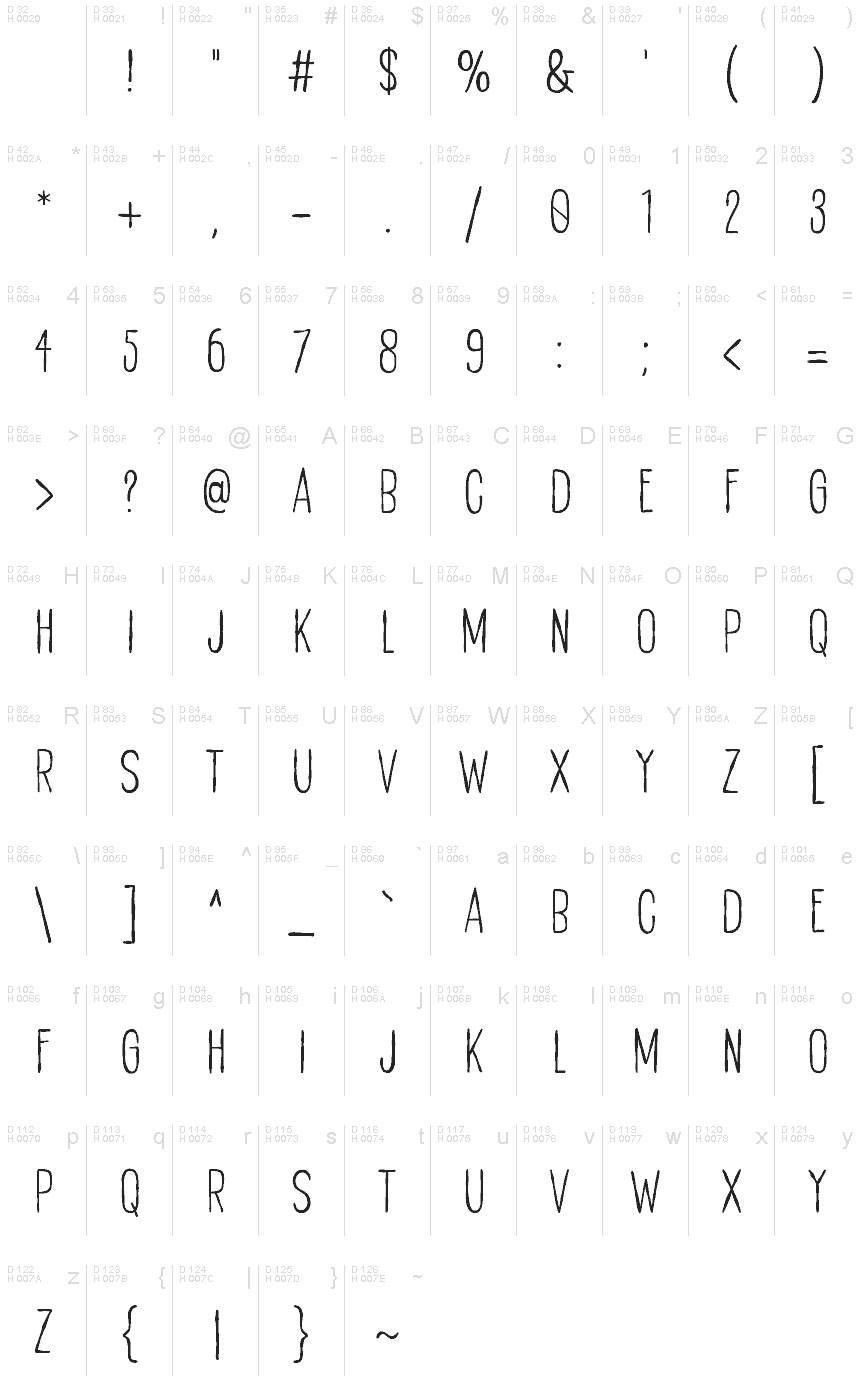
Smart Duck
Smart Duck font designed by Khurasan is an organic, modern option with a casual handwritten style. With a condensed width, this free handwritten font fosters a relaxed ambiance suitable for relaxed and fun designs. Its unique look will also hold viewers’ attention in advertisements and branding concepts.
Versatile applications for Smart Duck include website headers, banners, social media posts, ads, presentations. Magazine covers and book covers are a natural fit too. It can be incorporated in children’s magazines, modern streetwear brands or pop music band albums.